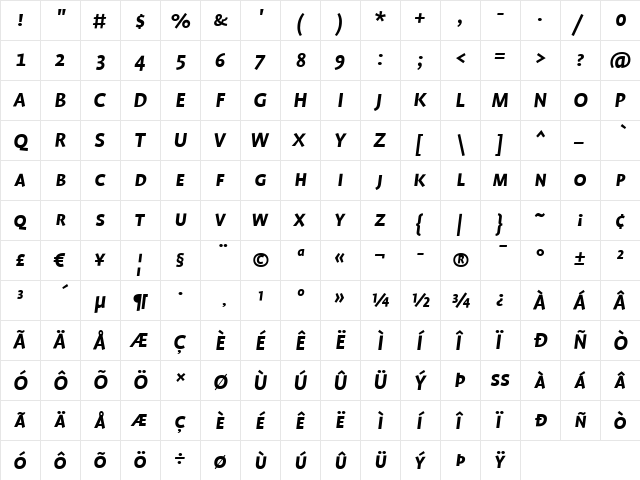
ProfileSC Bold
Design Context for ProfileSC Typeface
ProfileSC is a composed and adaptable typeface that performs quietly and consistently across a wide range of design contexts. The heavy weight commands attention and anchors typographic hierarchies.